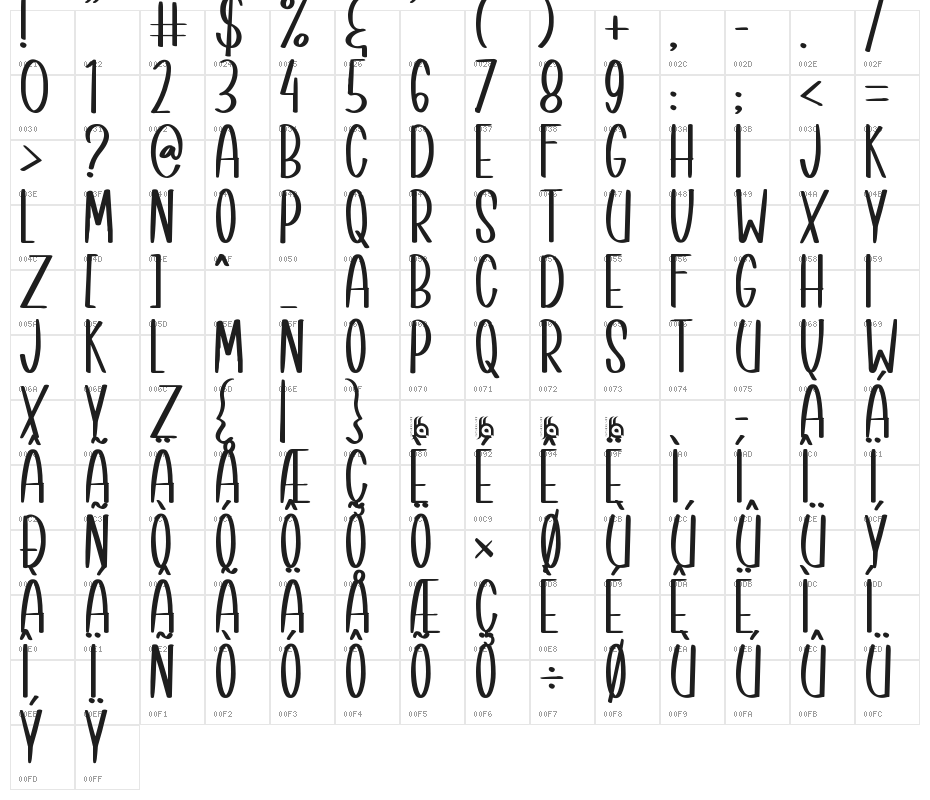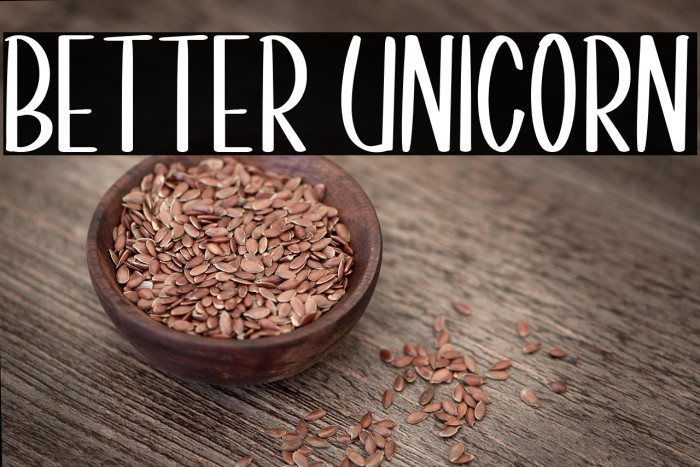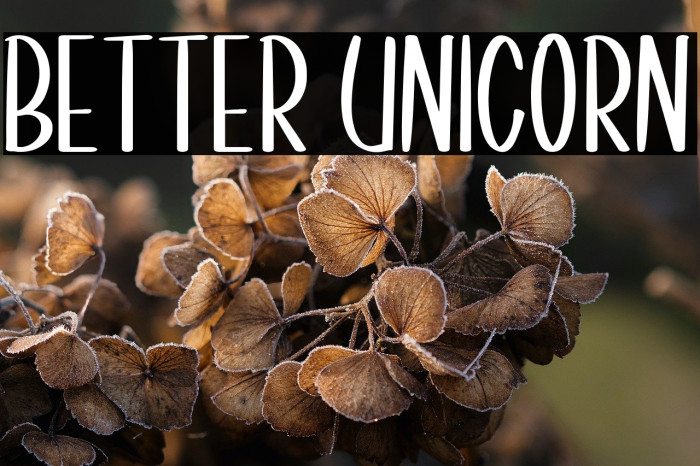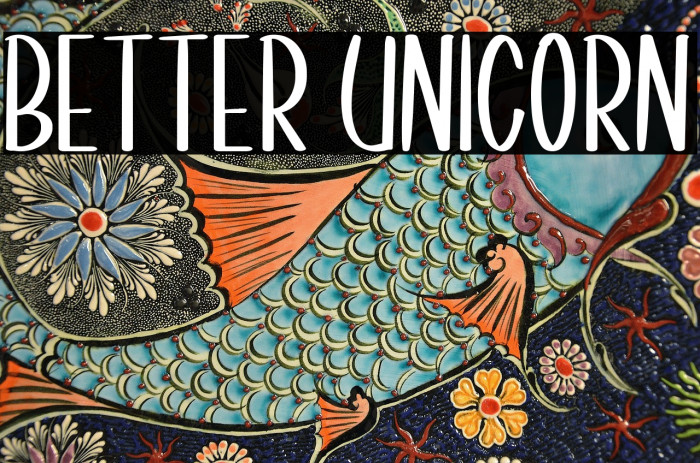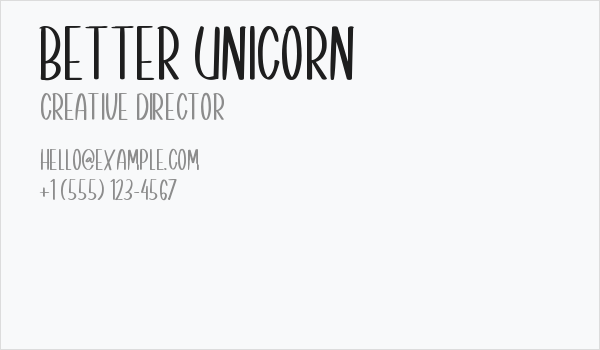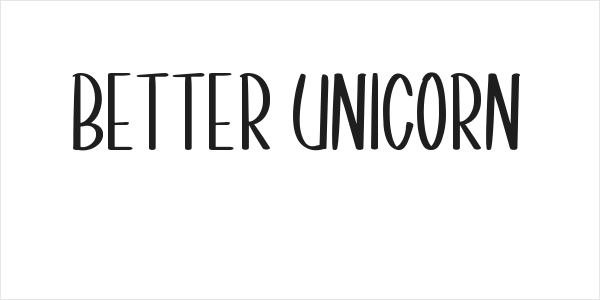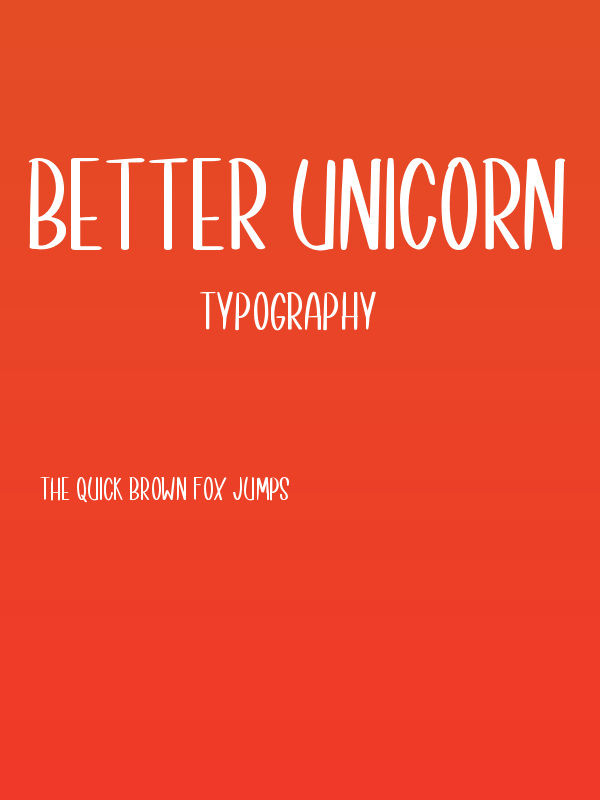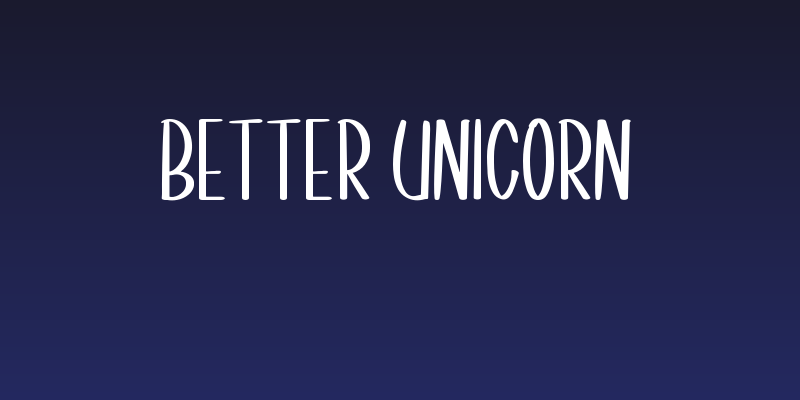
Better Unicorn Font
Better Unicorn Description
This font features a playful and whimsical design with tall, narrow letters that have a hand-drawn appearance. The strokes are smooth and consistent, giving it a casual yet stylish look. The uppercase and lowercase letters maintain a uniform height, contributing to its cohesive aesthetic. The numbers and special characters follow the same design principles, ensuring versatility across different uses. The overall style is modern and friendly, making it suitable for projects that require a touch of personality and creativity.
| Overall Style | Modern, Whimsical |
| Proposed Projects | Ideal for children's books, playful branding, greeting cards, and creative social media graphics. |